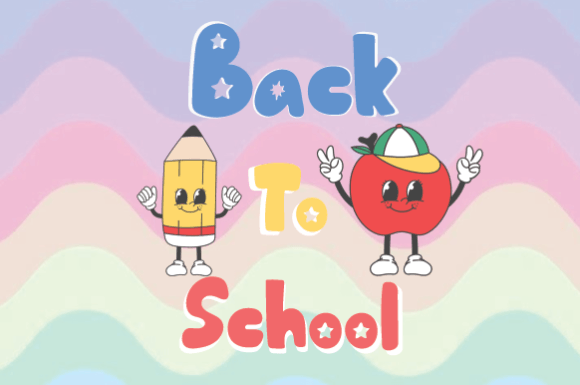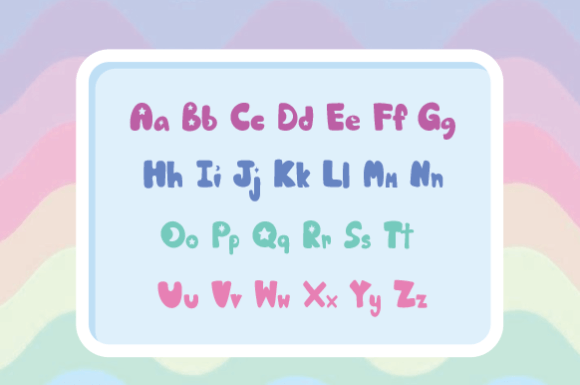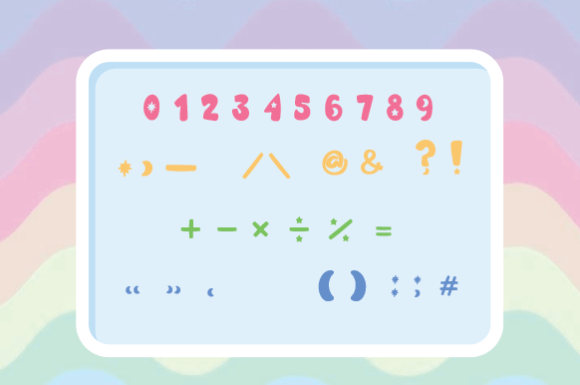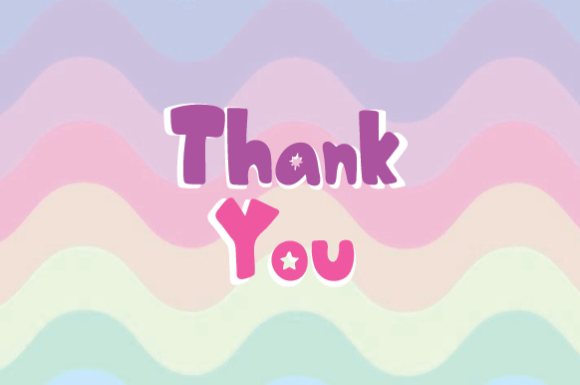
Introduction to Moon & Star Font
Have you ever found yourself in a creative rut, staring at a blank page, desperately searching for the perfect font to bring your project to life? That’s exactly what happened to me the last time I was working on a children’s themed design. I wanted something that would capture the whimsy and magic of the night sky, but nothing seemed quite right. That’s when I stumbled upon the Moon & Star Font – a delightful display font that perfectly combines the wonder of the moon and stars.
As a designer, I can tell you that having access to a high-quality design resource like the Moon & Star Font can be a game-changer for your creative project. With its transparent background and free download option, it’s the perfect addition to any design. Whether you’re working on a children’s book, a website, or a social media campaign, the Moon & Star Font is sure to add a touch of personality and fun to your design.
- Unique, high-quality design: The Moon & Star Font is a beautifully crafted font that’s perfect for creative projects, offering a touch of whimsy and magic.
- Perfect for creative projects: This font is ideal for designers working on creative projects, such as children’s books, greeting cards, and party decorations.
Honest Review: Moon & Star Font
I recently had the opportunity to try out the Moon & Star Font, and I must say, I was quite impressed. As a designer, I’m always on the lookout for high-quality design resources to elevate my creative projects. This font definitely fits the bill.
Here are some things that I think work well with the Moon & Star Font:
- ✨ The font is highly customizable, allowing you to adjust the size, color, and even the transparency of the background. This makes it perfect for creating visually appealing designs with a transparent background.
- ✨ The font is available in a range of styles, making it perfect for a variety of creative projects.
- ⚠️ The font may not be suitable for all types of designs, particularly those that require a high level of professionalism. While it’s great for creative projects, it may not be the best choice for corporate or formal designs.
Overall, I’m quite impressed with the Moon & Star Font. It’s a great addition to any designer’s toolkit, and I would definitely recommend it for creative projects that require a touch of elegance and sophistication.
Experiment with different font sizes and styles to create a unique look. Use the font in combination with other design elements, such as images and graphics, to create a visually appealing design. Don’t be afraid to try new things and push the boundaries of what’s possible with the Moon & Star Font.
The Moon & Star Font is perfect for a variety of creative projects, including invitations, posters, and social media graphics. You can also use the font to create a consistent brand identity across your marketing materials.